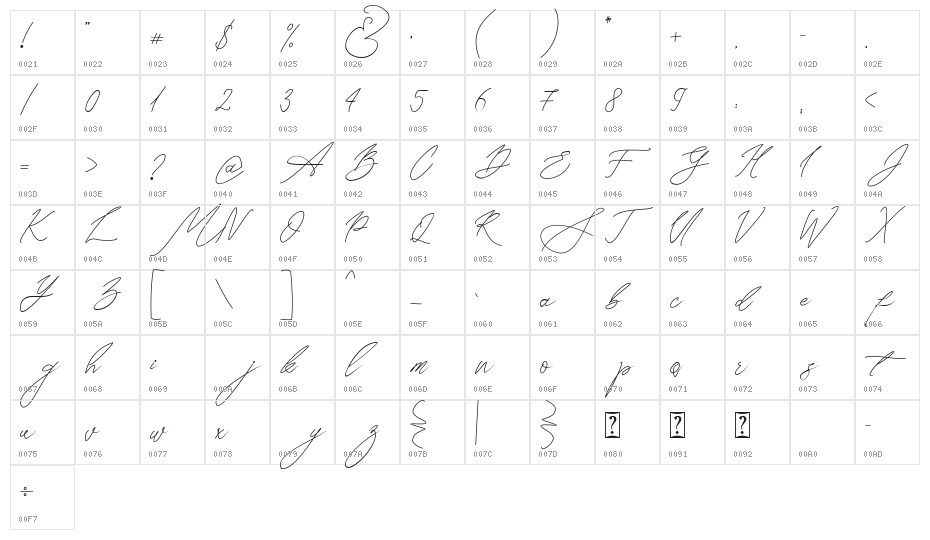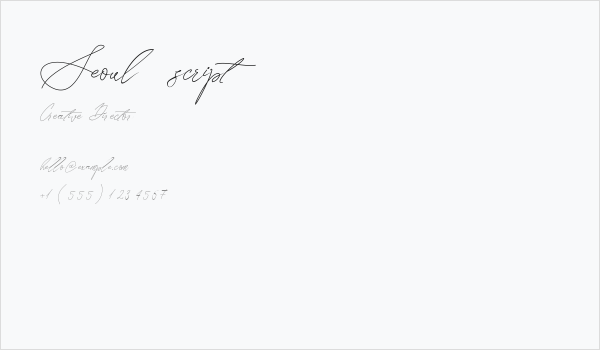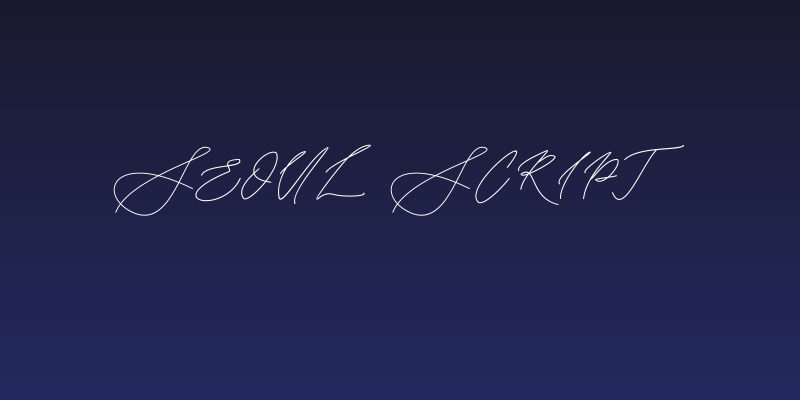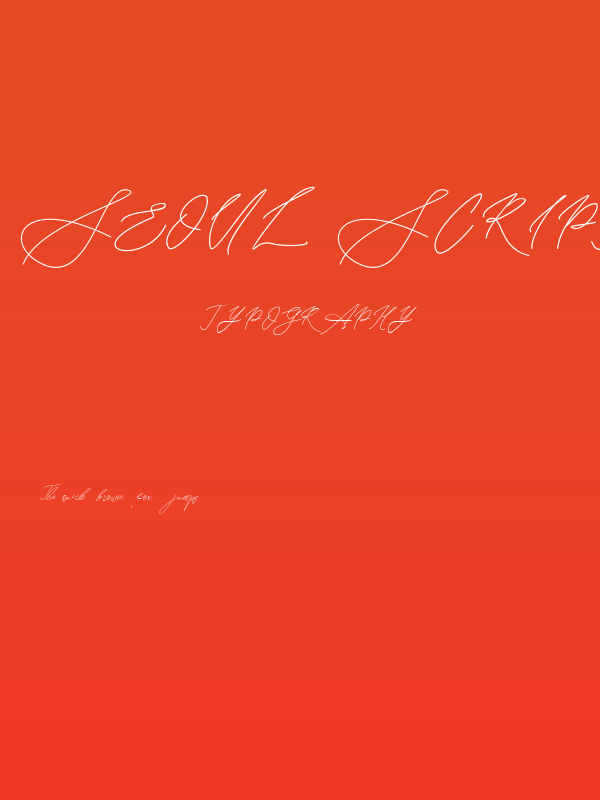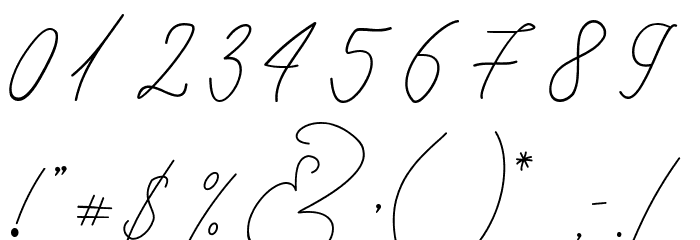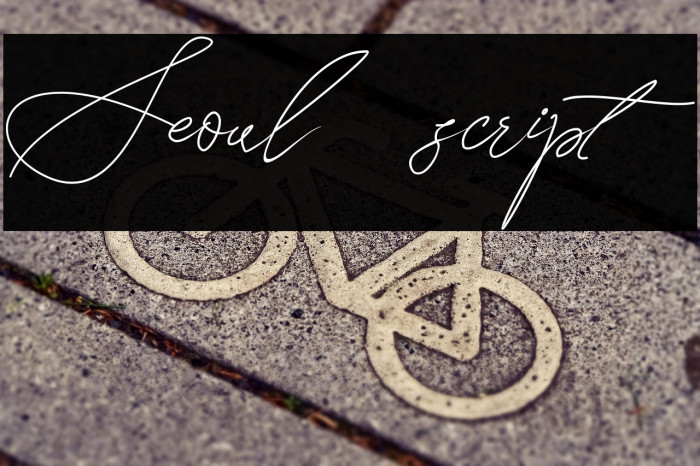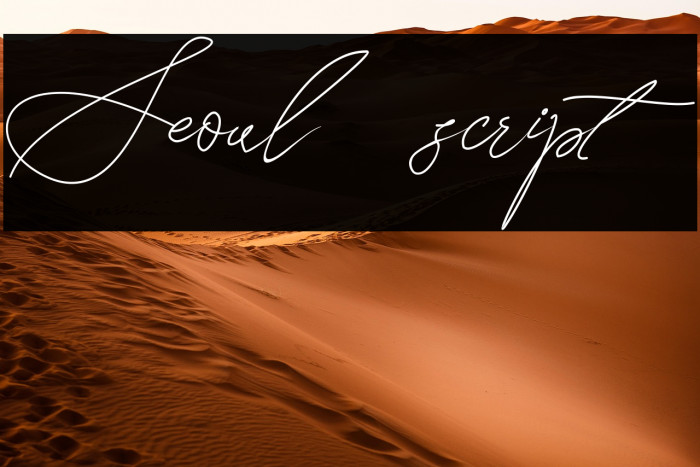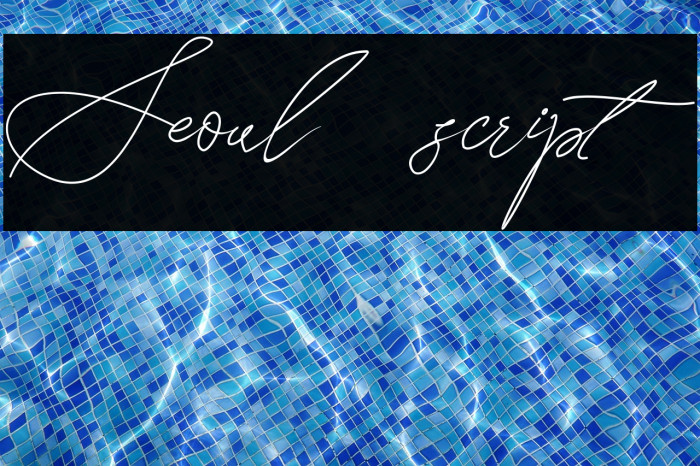
Seoul script Font
Seoul script Description
This elegant script font features flowing, interconnected letters that mimic the fluidity of cursive handwriting. The uppercase characters are tall and graceful, with sweeping ascenders and descenders that add a sense of movement and sophistication. The lowercase letters maintain a consistent slant, enhancing the overall harmony of the design. Numbers and special characters are crafted with the same attention to detail, ensuring a cohesive look across all elements. The font's thin strokes and high contrast between thick and thin lines give it a refined and delicate appearance, making it ideal for formal invitations, branding, and other projects where a touch of elegance is desired.
| Proposed Projects | Ideal for wedding invitations, elegant branding, personal stationery, and luxury product packaging. |